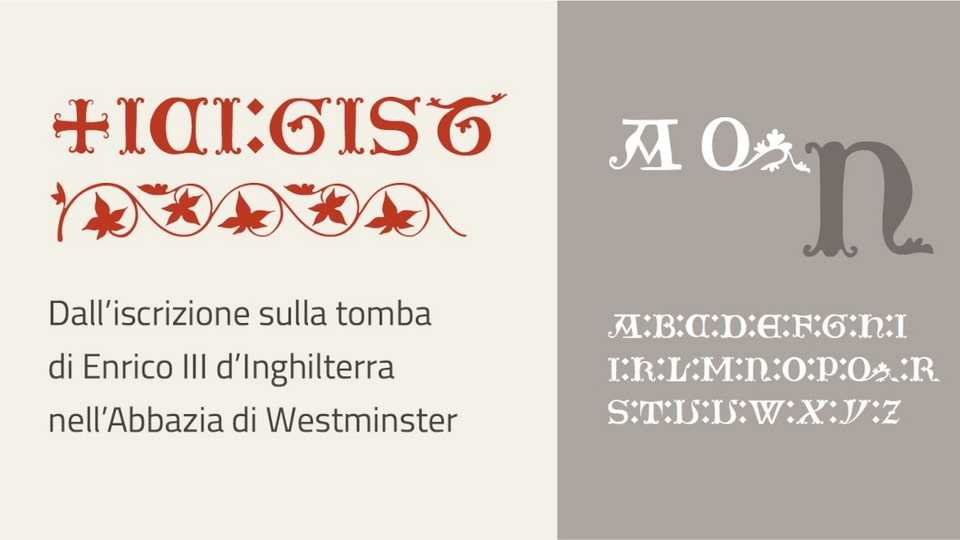
Download Ici Gist font, a decorative display typeface inspired by the intricate characters found on the tomb of Henry III of England from the 13th century. Ici Gist font features elaborate letterforms with finely crafted serifs and decorative embellishments.
Designer: Michele Casanova